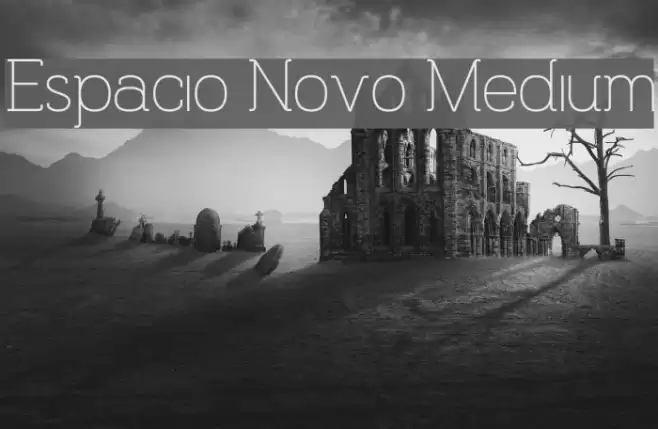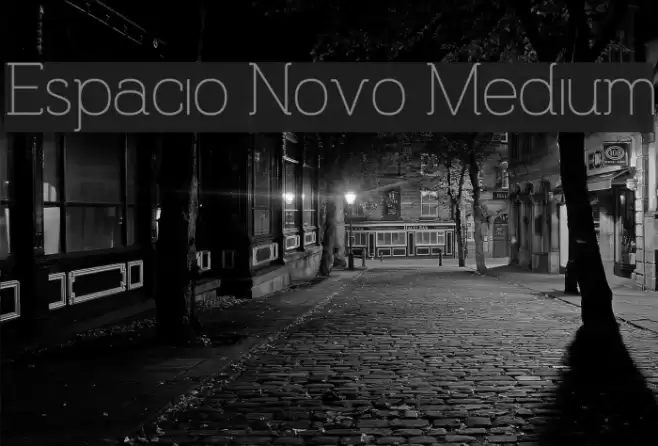
Espacio Novo Medium Font
Espacio Novo Medium Description
This font features a clean, geometric design with a modern aesthetic. The characters are constructed with consistent stroke widths, giving it a uniform appearance. The uppercase letters are tall and slightly narrow, while the lowercase letters maintain a similar width, creating a harmonious balance. The numerals are clear and legible, matching the overall style of the alphabet. Special characters are included, maintaining the same geometric style. This font is versatile, suitable for various design applications where clarity and modernity are desired.
A clean, geometric font with consistent stroke widths and a modern aesthetic from Uncategorized fonts.
- Proposed Projects: Ideal for branding, advertising, web design, and editorial projects where a modern and clean look is essential.